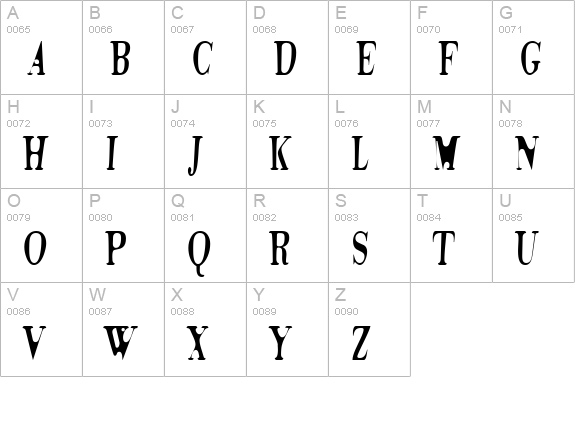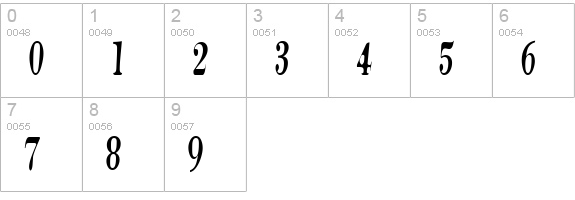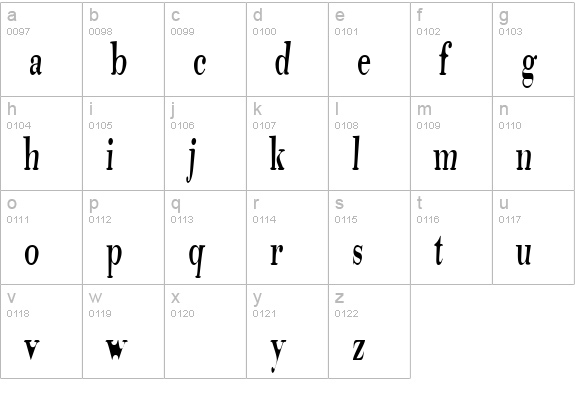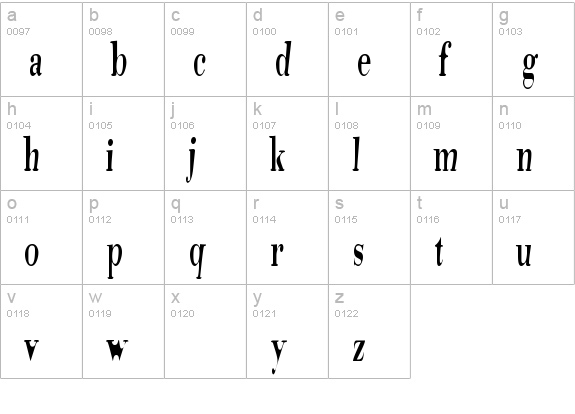
Tiidelag Font Details
Introducing Tiidelag, a captivating font that exudes elegance and sophistication. With its sleek lines and graceful curves, Tiidelag is the perfect choice for any design project that requires a touch of class. Whether you are creating invitations, logos, or promotional materials, this font will undoubtedly elevate your work to a whole new level. But what truly sets Tiidelag apart is not just its aesthetic appeal, but also its accessibility. Unlike many other premium fonts, Tiidelag is available free of charge. Yes, you heard it right – this stunning font can be yours without spending a single penny. Thanks to FontsMarket.com, you can easily download Tiidelag and start using it in your designs right away. With just a few clicks, you can add this exquisite font to your collection and enjoy the endless possibilities it offers. Whether you are a professional designer or a hobbyist, Tiidelag is the perfect addition to your creative toolbox. So why wait? Experience the beauty and versatility of Tiidelag today. Download it for free at FontsMarket.com and unlock a world of design possibilities. With Tiidelag, your projects will stand out and leave a lasting impression on your audience. Don't miss out on this incredible opportunity – get your hands on Tiidelag now and let your creativity soar.